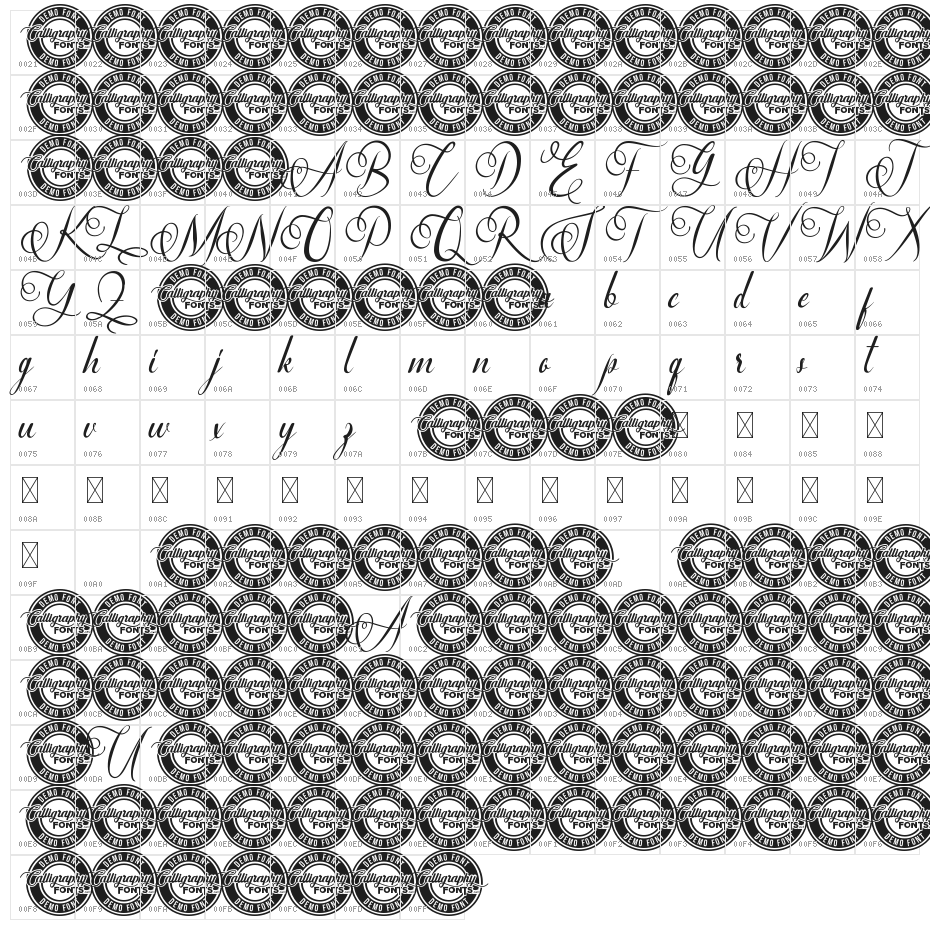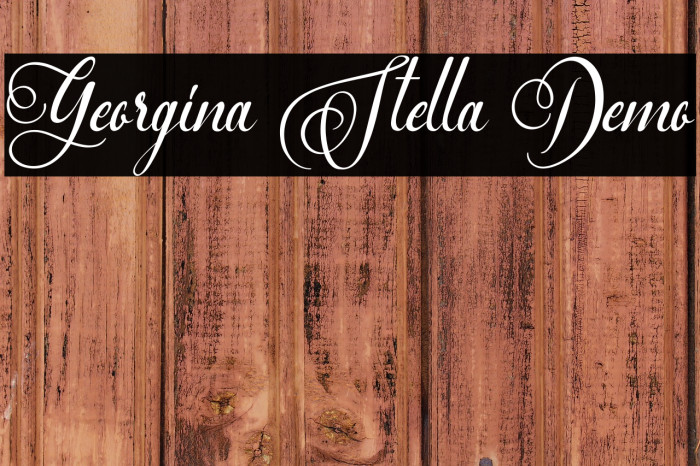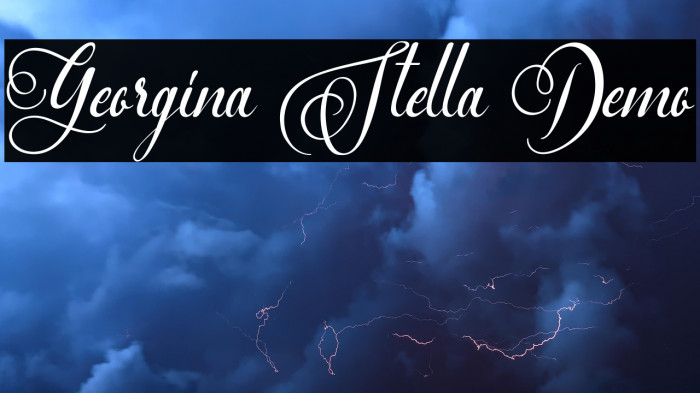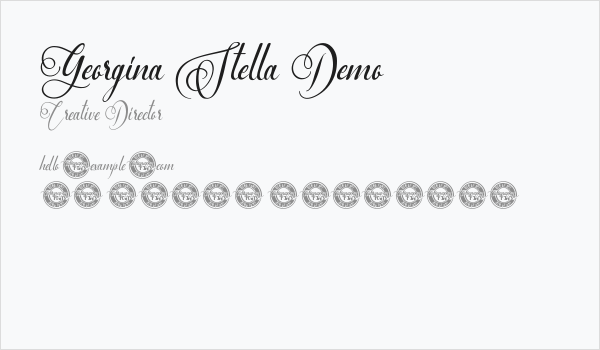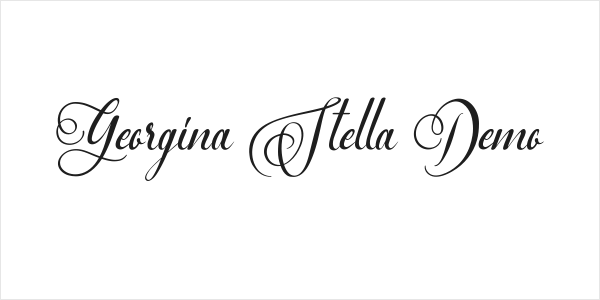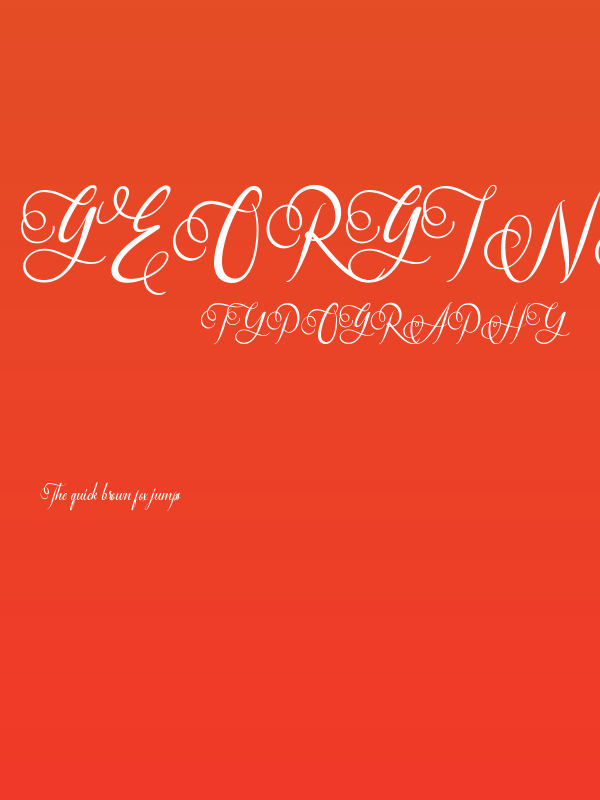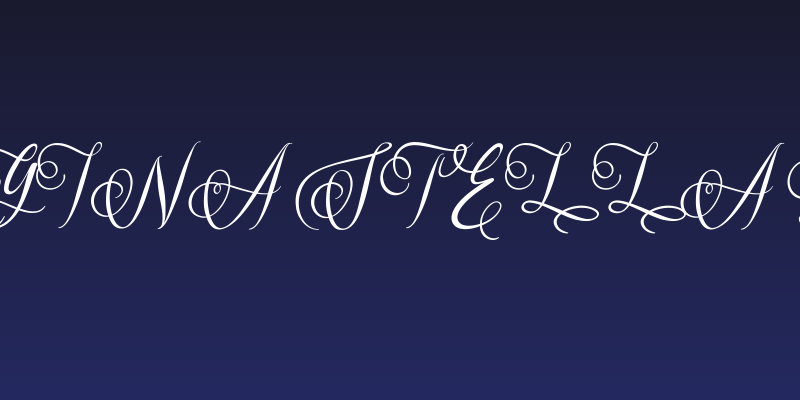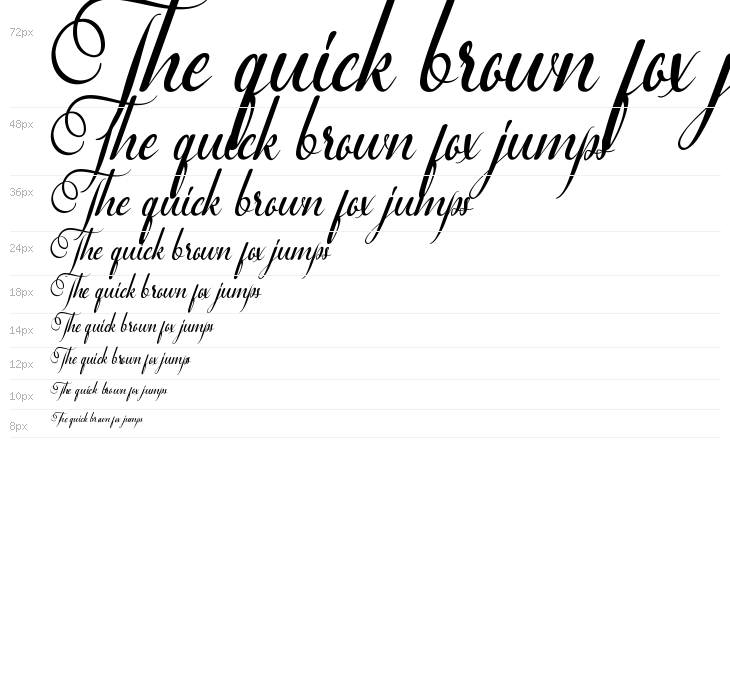
Georgina Stella Demo Font
Georgina Stella Demo Description
This elegant script font features intricate, flowing lines and a sophisticated style. The uppercase letters are adorned with elaborate swashes and loops, giving them a decorative and ornate appearance. The lowercase letters maintain a smooth, cursive flow, enhancing readability while retaining a stylish flair. The numerals and special characters are crafted with the same attention to detail, ensuring a cohesive look across all glyphs. This font exudes a sense of luxury and refinement, making it ideal for projects that require a touch of elegance.
| Overall Style | Elegant, Decorative |
| Proposed Projects | Ideal for wedding invitations, luxury branding, elegant stationery, and high-end product packaging. |